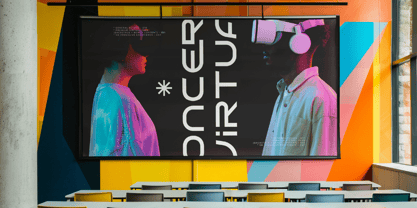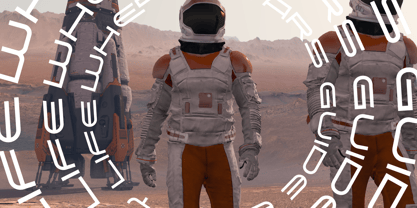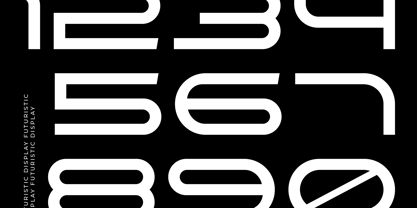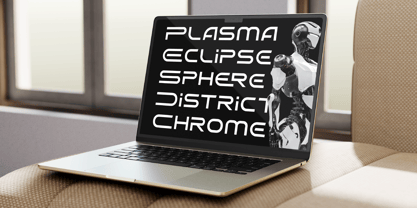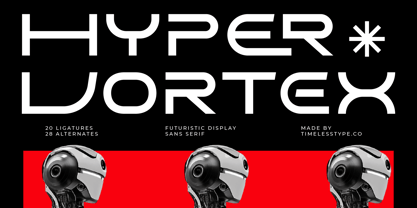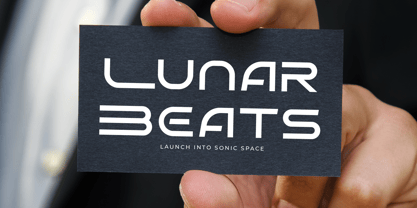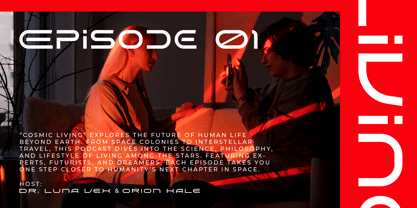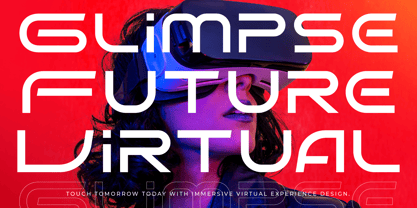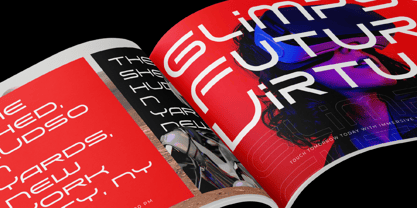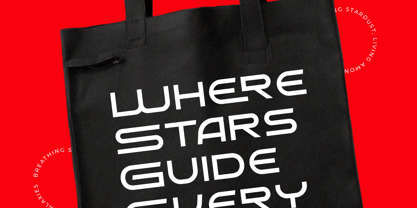
Hyper Vortex
by Timelesstype Studio
The Hyper Vortex Font Family was designed by Heru Utama Putra and published by Timelesstype Studio. Hyper Vortex contains 2 styles and family package options. More about this family
Hyper Vortex - Futuristic display Sans Serif Font , from Timelesstype .Co , Suitable for any projects such as: logos, branding projects, homeware designs, product packaging, mugs, quotes, posters, shopping bags, t-shirts, book covers, name card, invitation cards, greeting cards, label, photography, watermark, special events, and all your other luxury and beautiful projects that need a Luxury Serif taste.